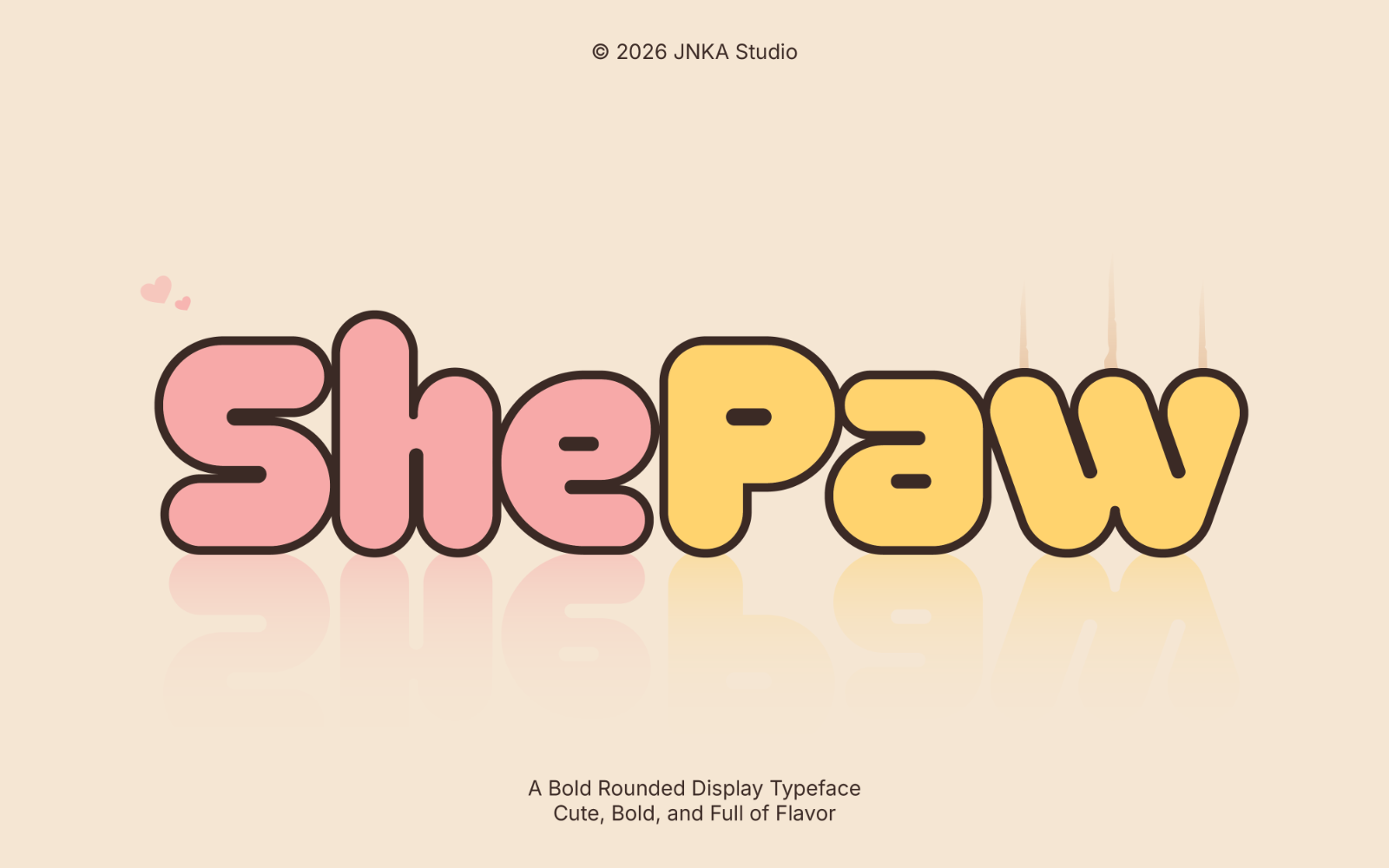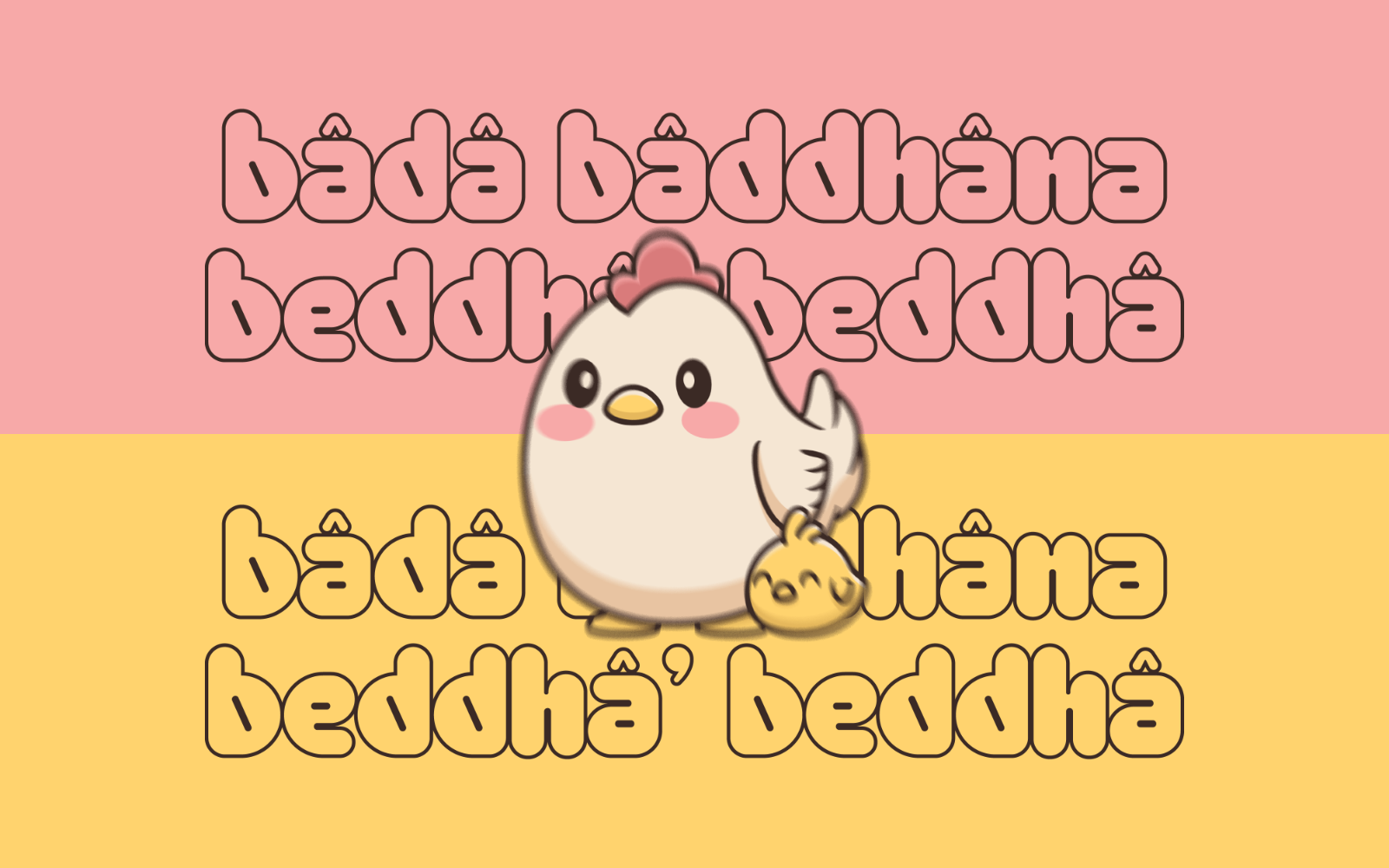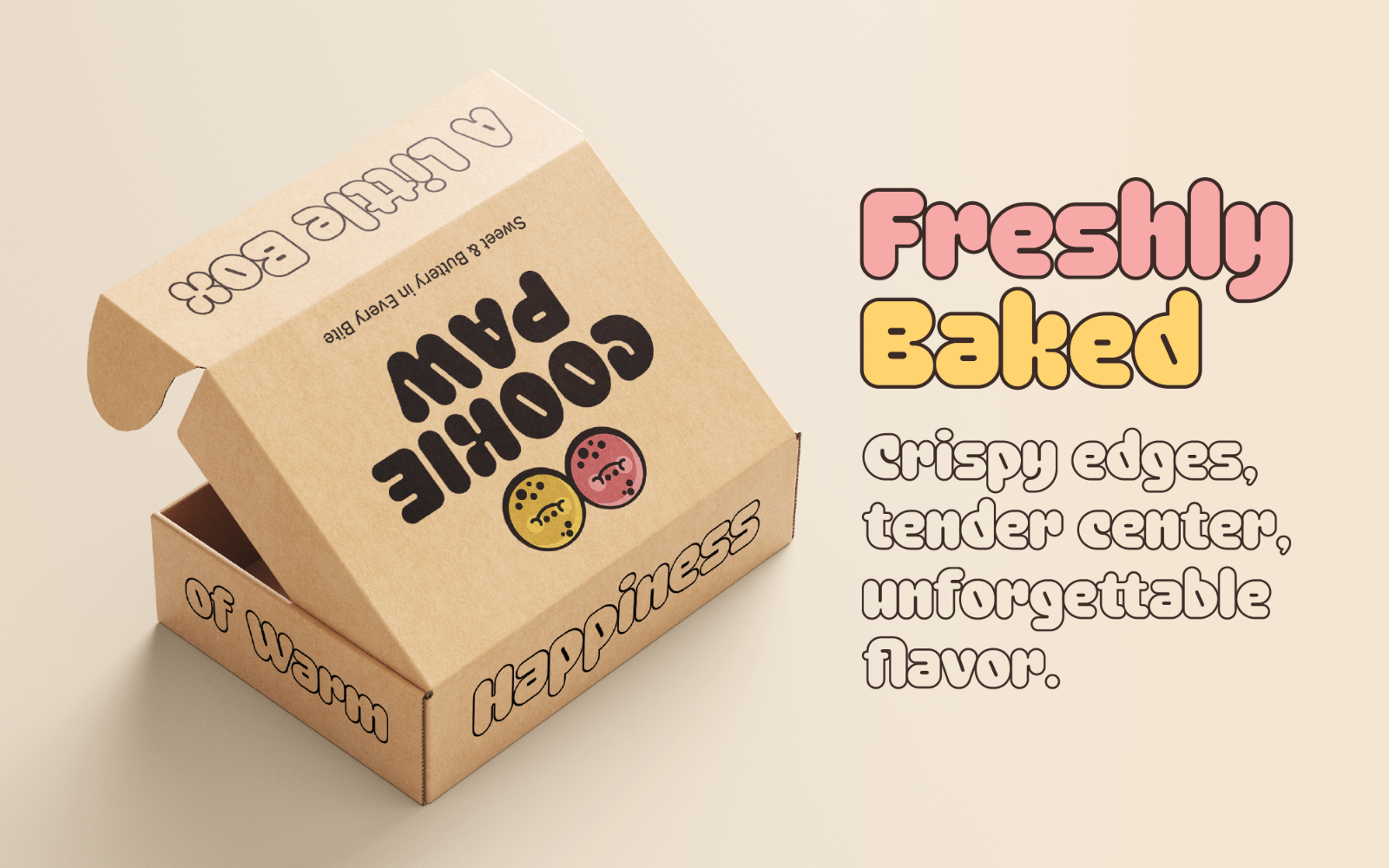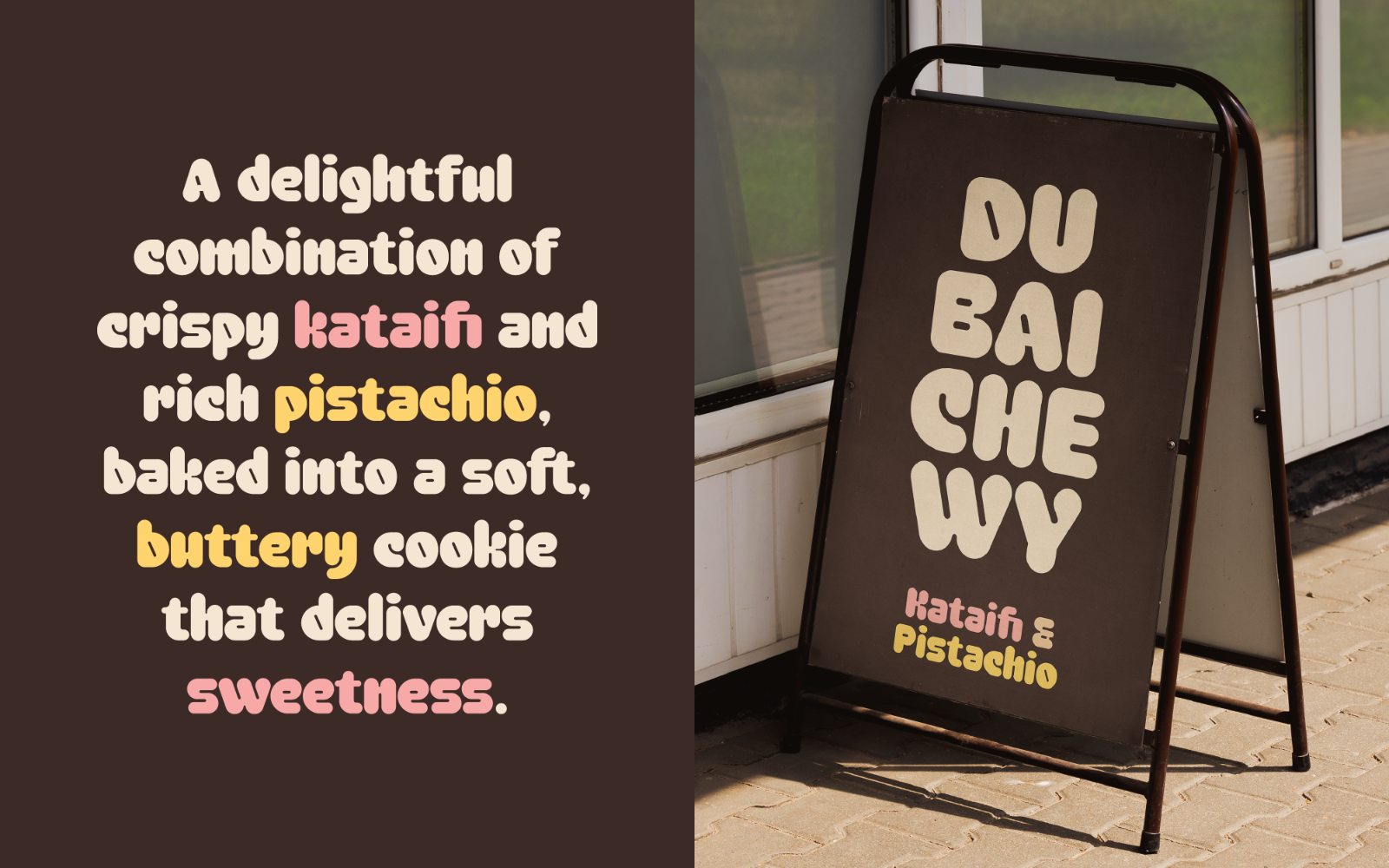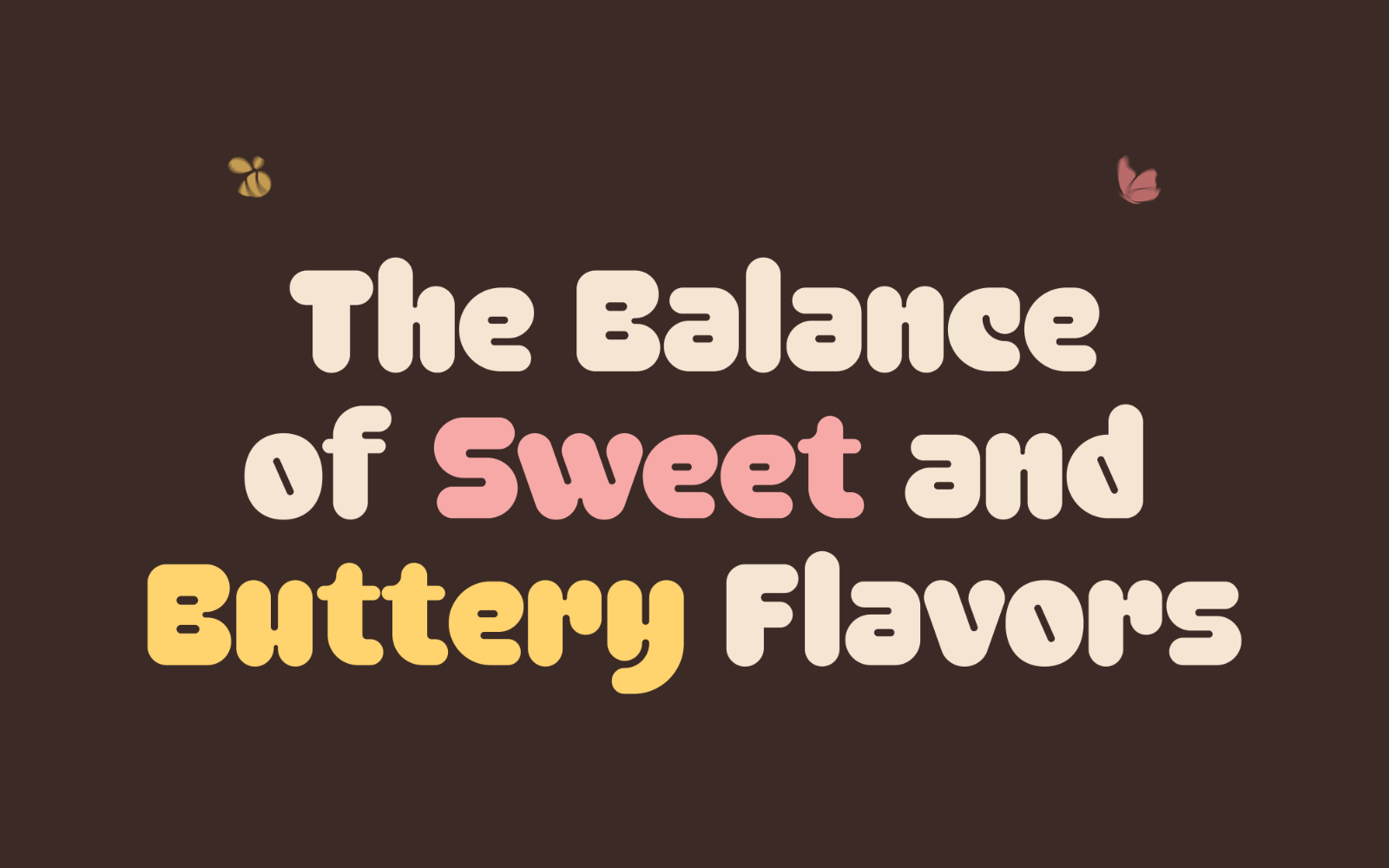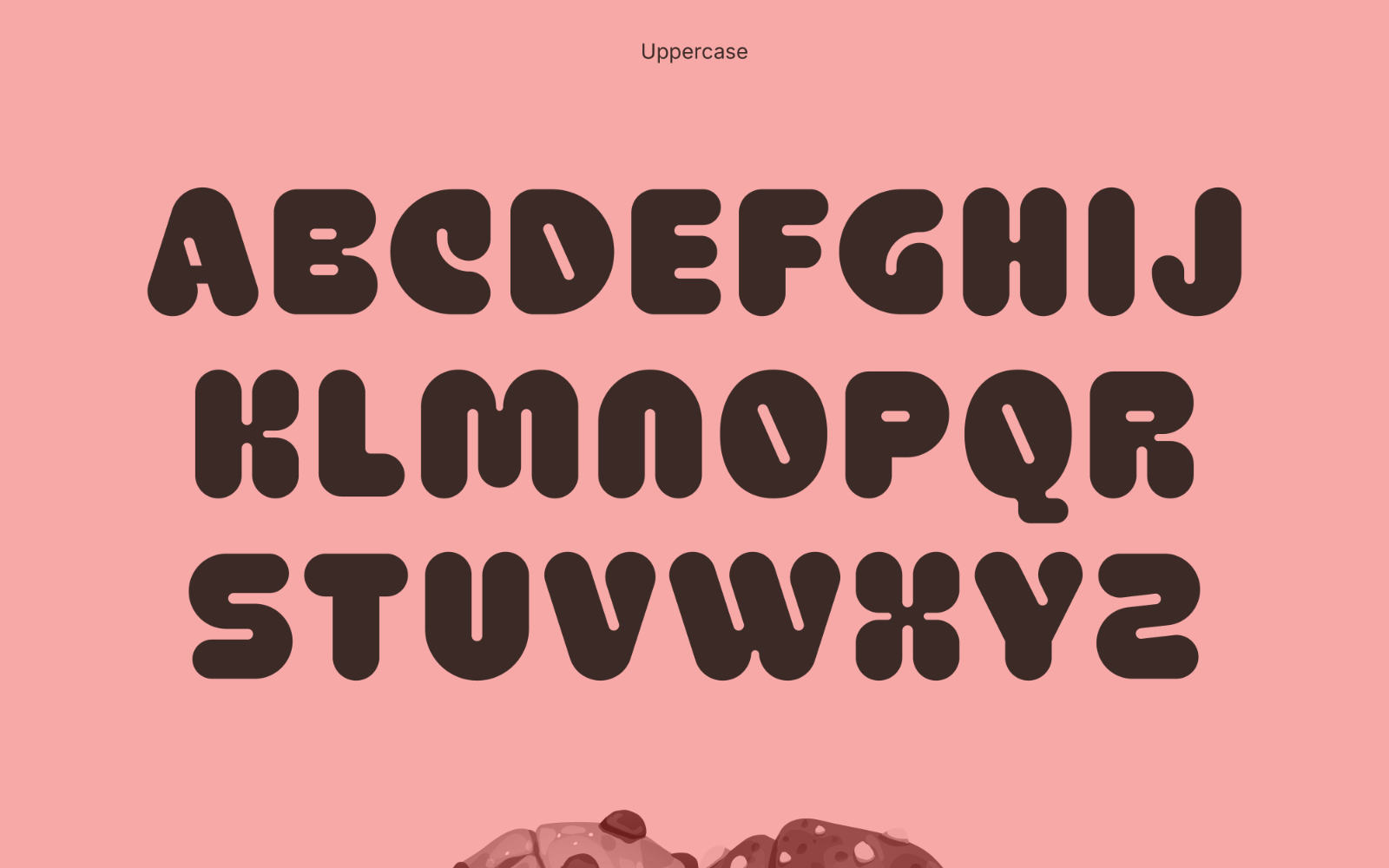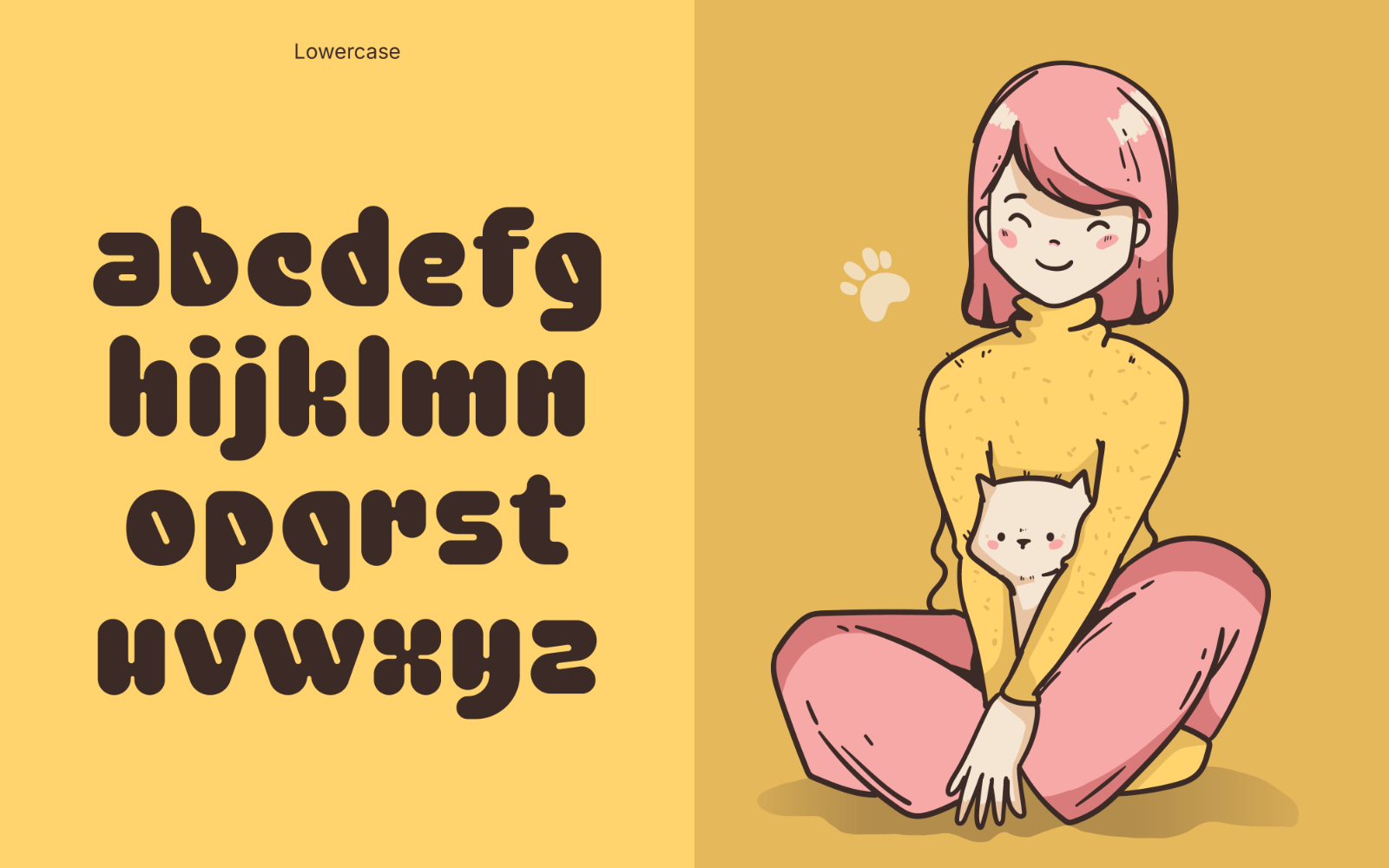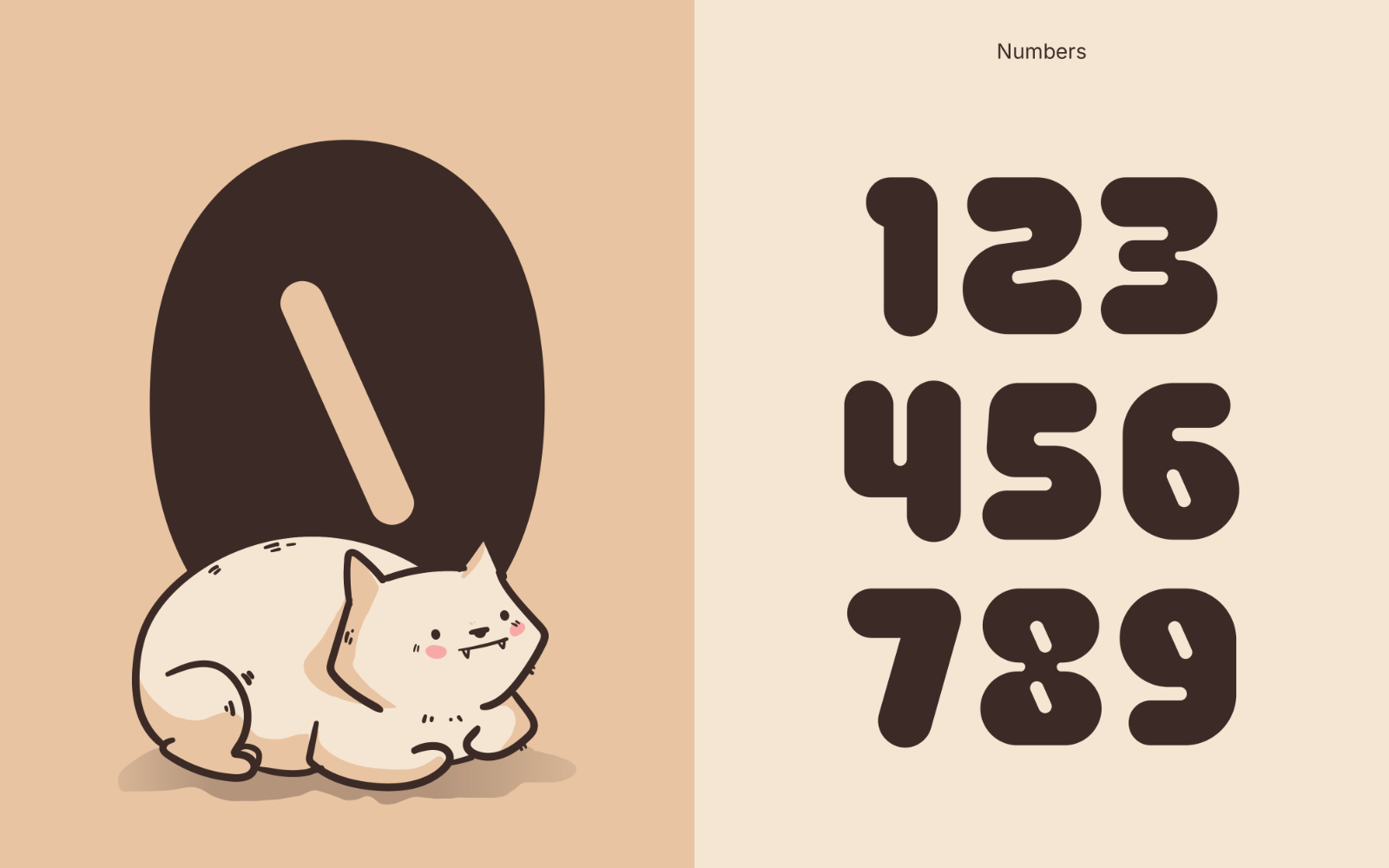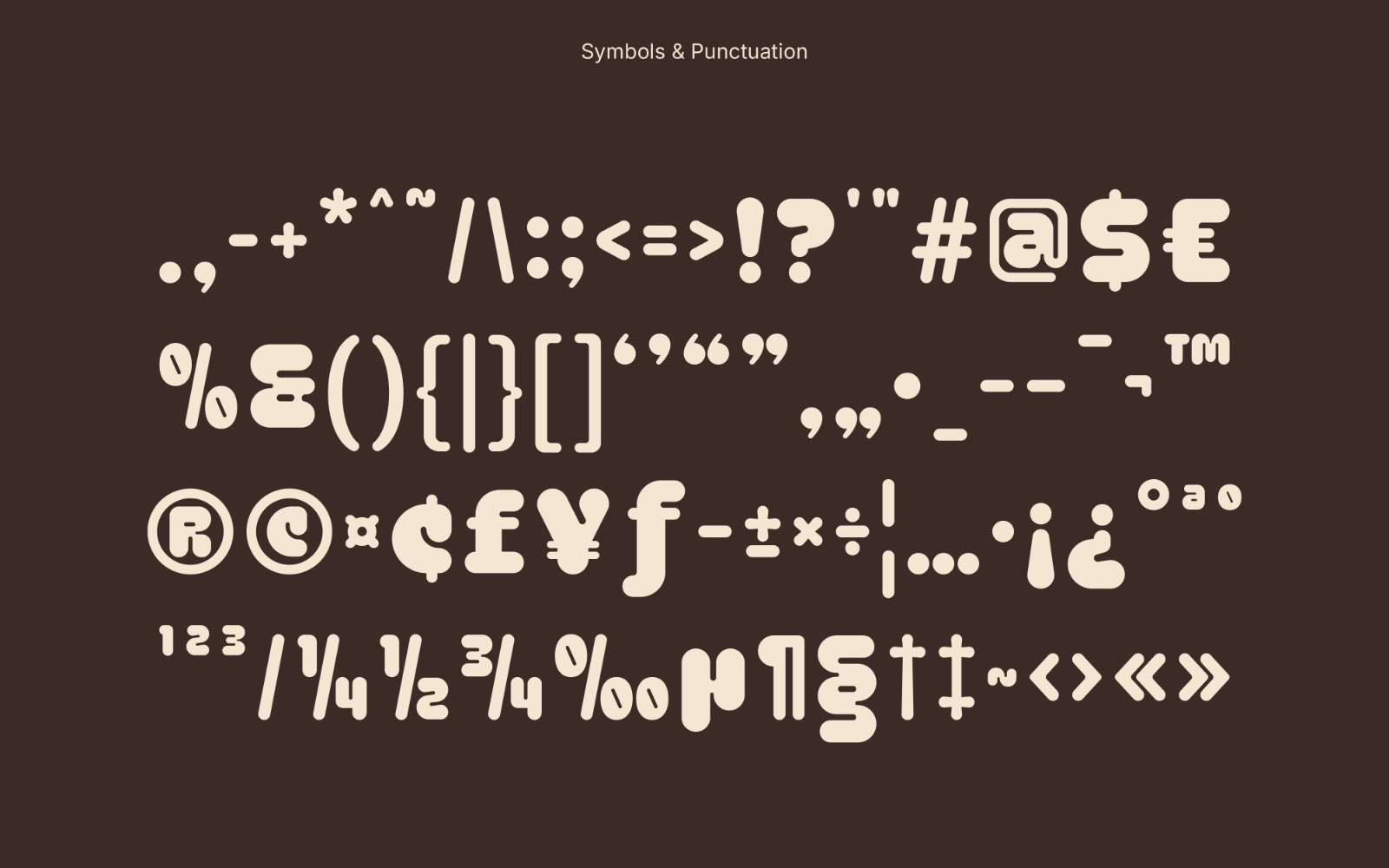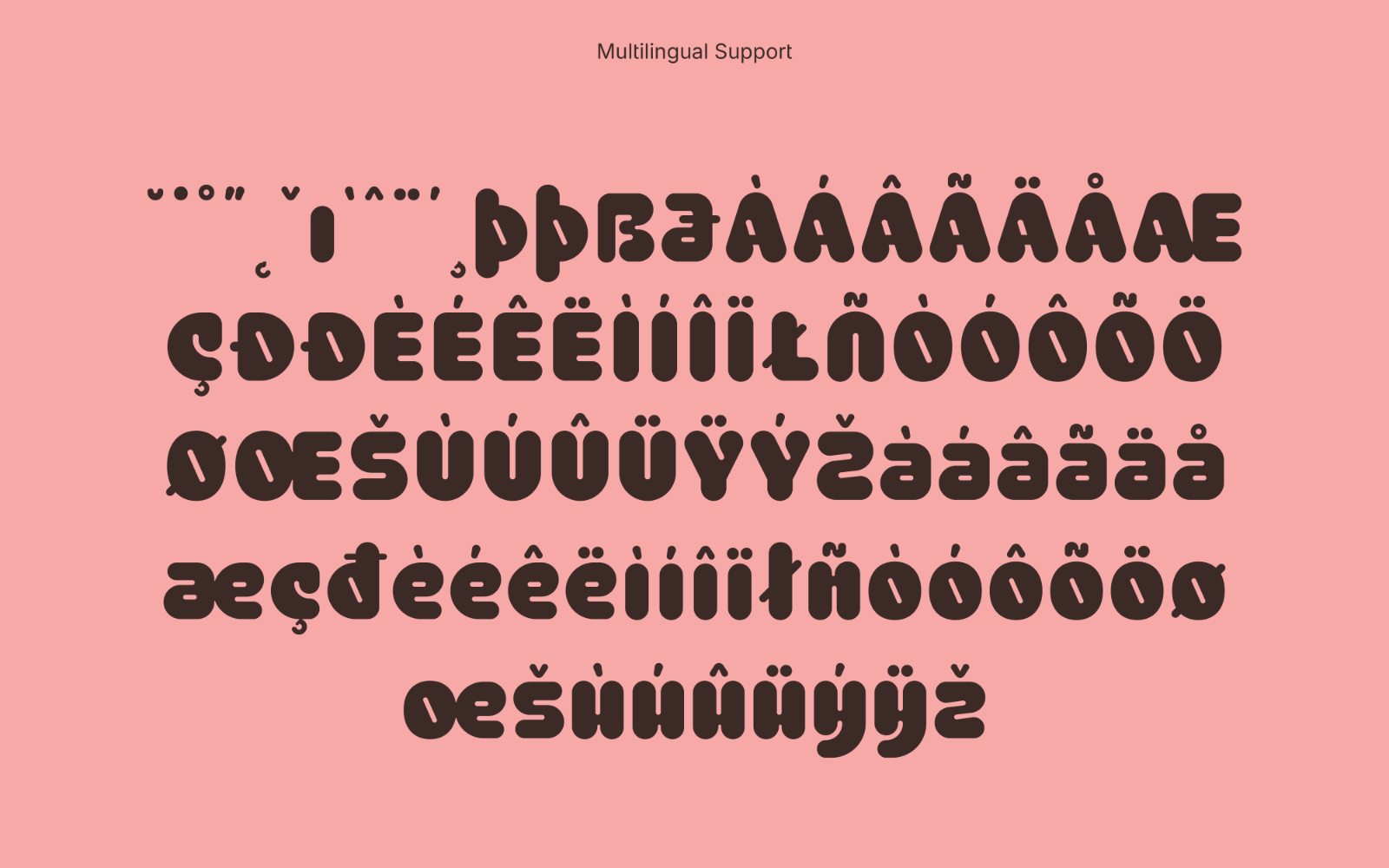
ShePaw
Is a bold rounded display typeface inspired by the warm balance of sweet and buttery flavors from homemade cookies. Designed with consistent inner counters and playful forms, this typeface brings a soft yet flavorful personality into every letter. Perfect for branding, packaging, posters, bakery visuals, and playful modern designs.
Font Features:
• Uppercase & Lowercase Letters
• Numbers & Standard Punctuation
• Symbols & Special Characters
• Basic Multilingual Support (Latin-based)
• Stylistic Alternates
• Standard & Decorative Ligatures
• Fully PUA Encoded Characters
• Carefully Adjusted Kerning
• Approx. 239 Glyphs
• OpenType Features